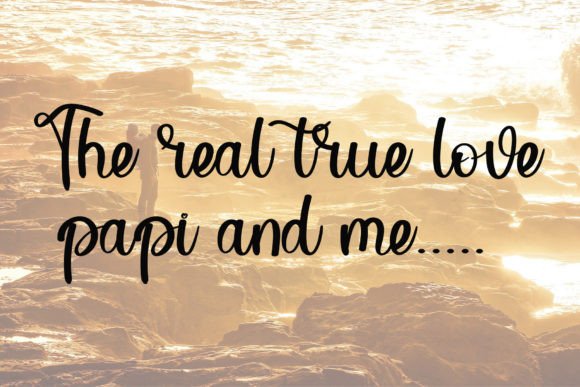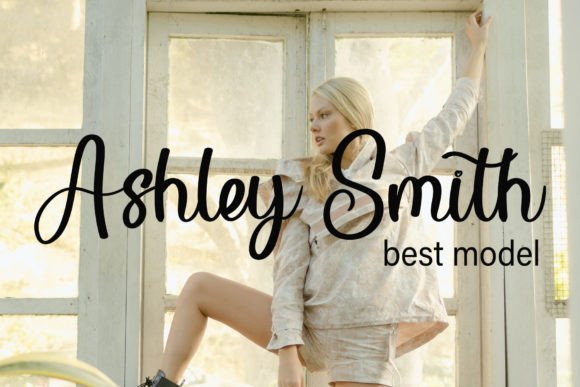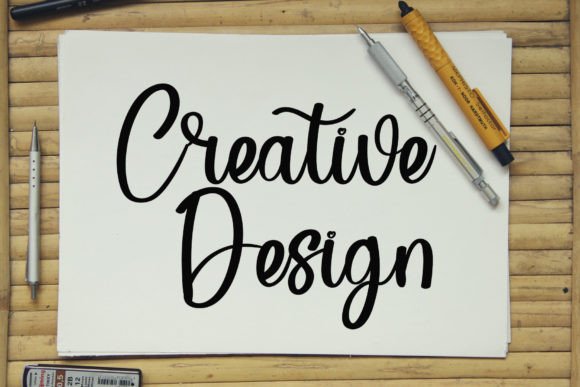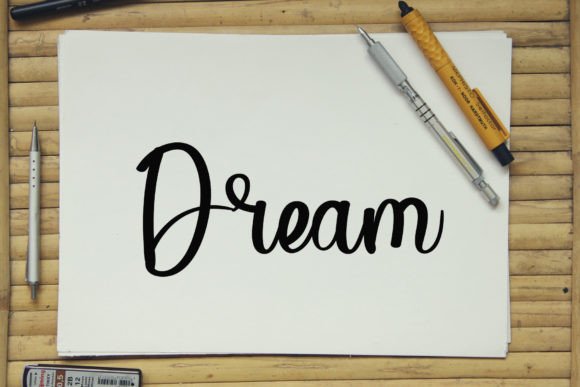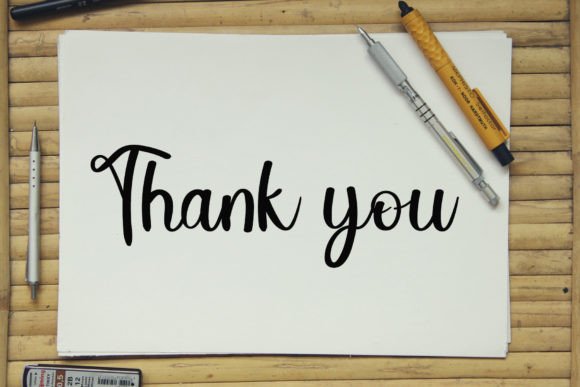
Introduction to Papi Font
Have you ever stumbled upon a design that just makes you feel all warm and fuzzy inside? Maybe it’s a beautiful watercolor painting or a handwritten note from a loved one. Whatever it is, it’s those little moments of creativity that make life so special. And, as designers, we’re always on the lookout for those special touches to bring our projects to life.
That’s where the Papi Font comes in – a sweet and friendly handwritten font that’s perfect for adding a lovely touch to any design. With its fun and relaxed vibe, it’s ideal for writing wedding invitations, cards, or any other design that needs a bit of personality.
Papi Font
- Unique, modern design with a transparent background, making it perfect for digital use
- Includes a wide range of characters, including uppercase and lowercase letters, numbers, and punctuation
Honest Review: Papi Font
The Papi Font did not disappoint. ✨ Its playful, modern aesthetic is perfect for a wide range of design applications, from branding and marketing materials to digital products and social media graphics. I loved how versatile it is, and the transparent background made it easy to overlay on top of images or other design elements.
Here are some key features that stood out to me:
- High-quality typography with a unique, modern feel
- Perfect for a variety of design applications, from branding to digital products
One thing to note is that the font may not be suitable for formal or professional settings, as it has a more playful tone. ⚠️ Additionally, the font may not be as customizable as some other design resources, which could be a limitation for some users.
Overall, I was impressed with the Papi Font and would recommend it to designers looking for a fun, modern font for their next creative project.
Papi Font
Tips for Getting the Most Out of Papi Font
Experiment with different font sizes, colors, and styles to achieve the desired look. You can also combine Papi Font with other design elements to create a unique visual identity.
Papi Font is ideal for use in branding materials, social media graphics, and marketing materials. Its high-quality design and transparent background make it perfect for creating visually appealing and professional-looking designs.